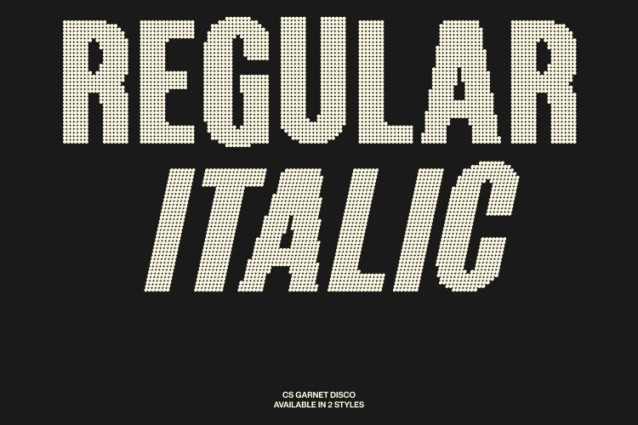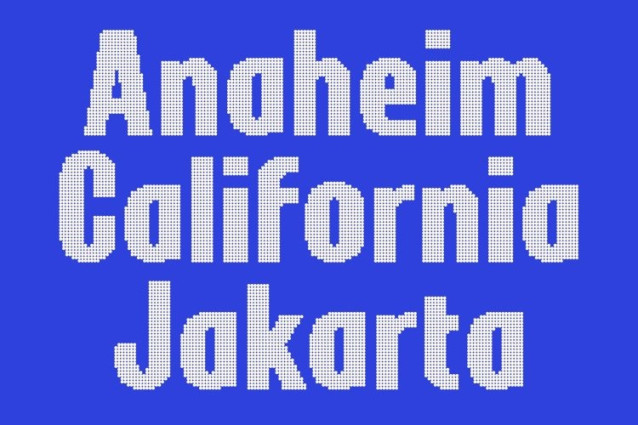
CS Garnet Disco Font
CS Garnet Disco Font This is a condensed sans serif font built for maximum visual power now infused with bold disco spirit. Its tight, compact proportions create an intense, vertical presence that feels confident, modern, and ready for the spotlight. Designed to dominate headlines and posters, it delivers high impact even in limited space.
Compact Letterforms with Clarity and Rhythm
Despite its condensed structure, this font maintains excellent readability through carefully balanced strokes and clean construction. The letterforms feel punchy and rhythmic, echoing the pulse of music and flashing lights, making every word feel alive and dynamic without sacrificing clarity.
Contemporary Geometry with Energetic Expression
Modern geometric shapes give this font a sharp, professional foundation, while its disco influence adds expressive tension and visual excitement. The result is typography that feels bold, stylish, and energetic perfect for designs that want to project confidence with a vibrant edge.
Perfect for Posters, Branding, and High-Impact Visuals
Ideal for branding, posters, event visuals, editorial headlines, and digital campaigns, this font thrives in bold, attention-grabbing environments. This font is the go-to choice for designers who want condensed typography that feels powerful, modern, and charged with dance-floor energy.